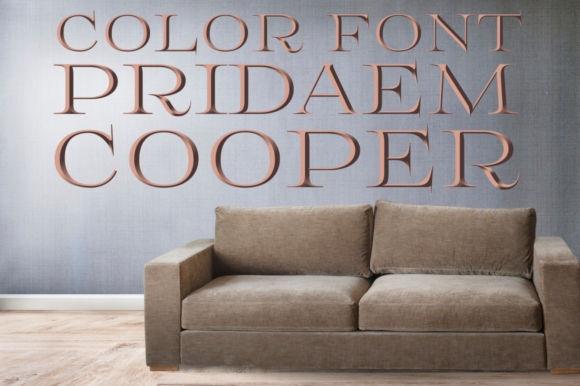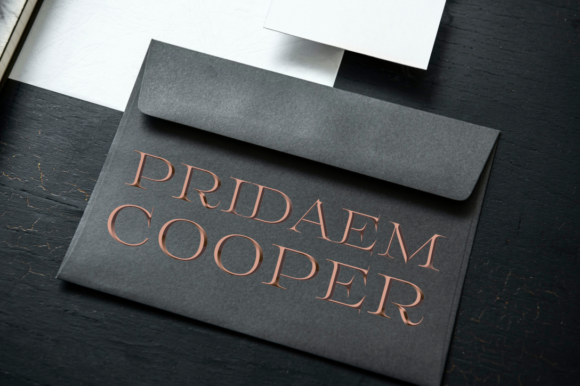
About Pridaem Cooper Font
Pridaem Cooper is a cool and incredibly useful color font. It can be used for various purposes such as logos, wedding invitations, headings, t-shirts, letterhead, signage, labels, news, posters, badges and so much more.